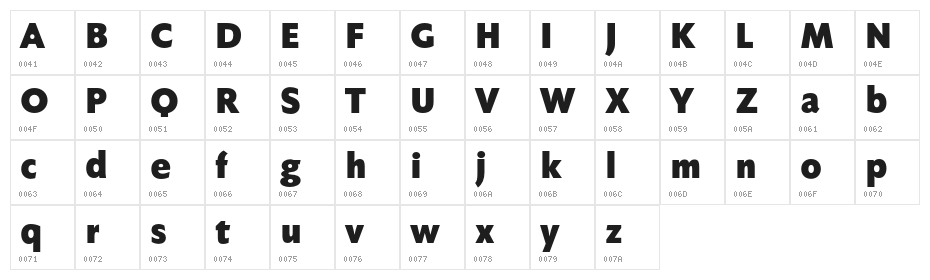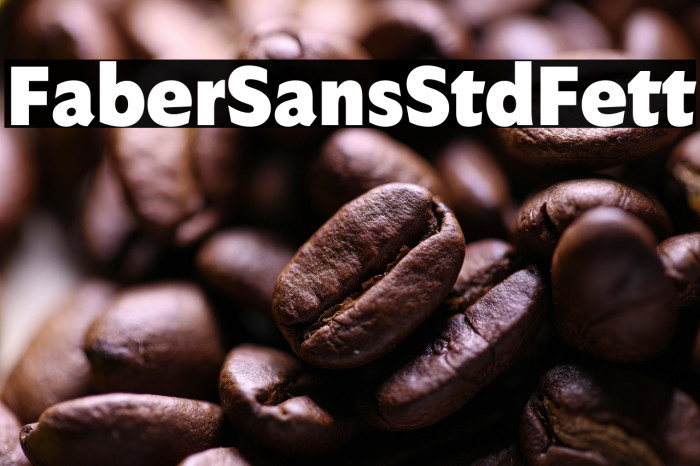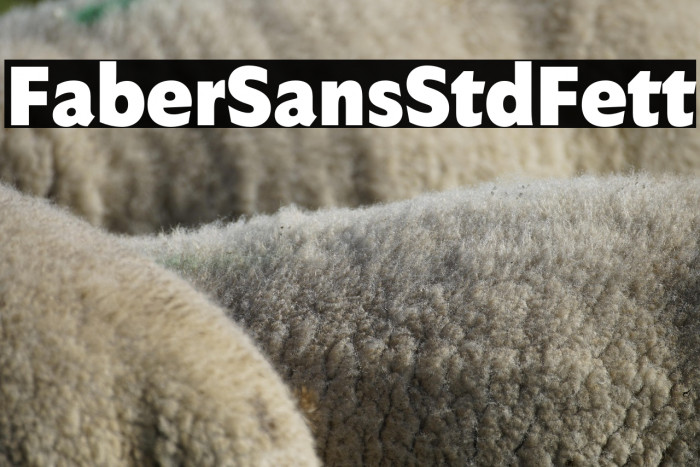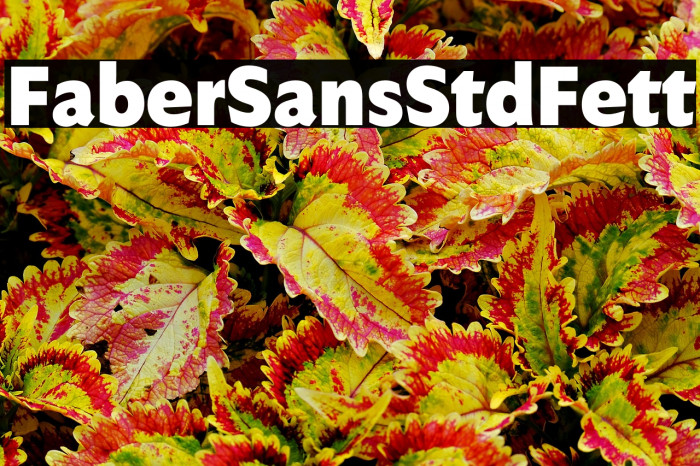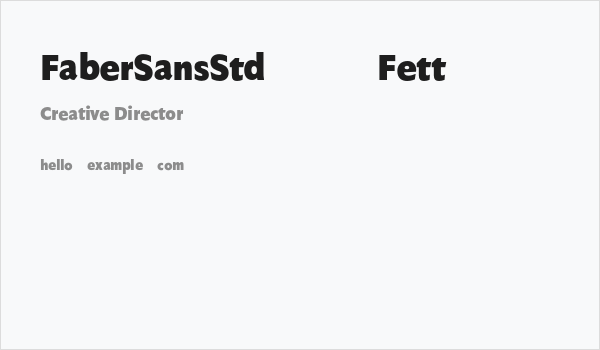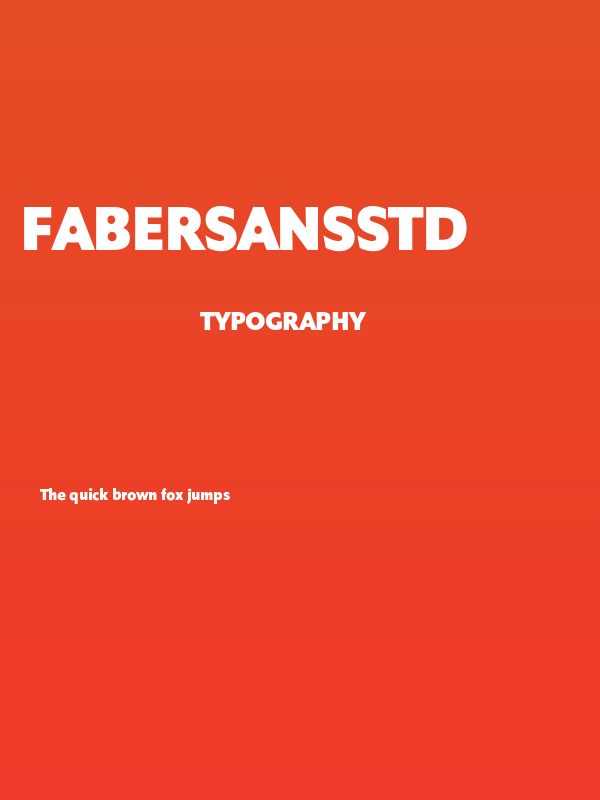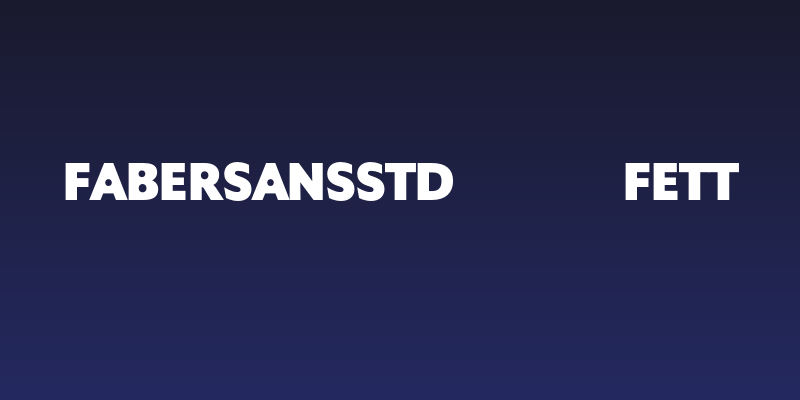
FaberSansStd-95Fett Font
FaberSansStd-95Fett Description
This font exhibits a bold and striking appearance, characterized by its thick, uniform strokes and clean lines. The uppercase and lowercase letters maintain a consistent weight, contributing to a strong visual impact. The geometric shapes and lack of serifs give it a modern and professional look, suitable for various design applications. The characters are well-proportioned, with a balanced height and width that enhances readability. The font's robust structure makes it ideal for headlines and titles, where clarity and emphasis are essential. Its simplicity and boldness make it versatile for both digital and print media.